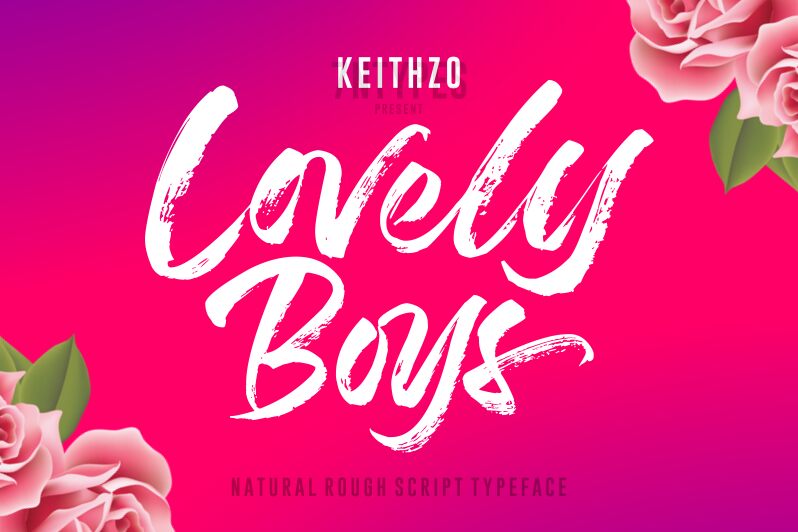
Lovely Boys
The Lovely Boys font radiates an irresistible charm, capturing the essence of a handwritten script with its organic, fluid strokes. Designed by the talented duo of Keithzo and Situjuh Nazara of 7NTypes, this brush-style font exudes a sense of warmth and spontaneity, making it an enticing choice for a wide range of design projects.
Lovely Boys' dynamic lines and expressive, slightly imperfect letterforms lend themselves beautifully to applications where a personal, artisanal touch is desired. From branding and packaging to wedding stationery and editorial design, this font has the versatility to elevate any project with its distinctive flair and nostalgic appeal.